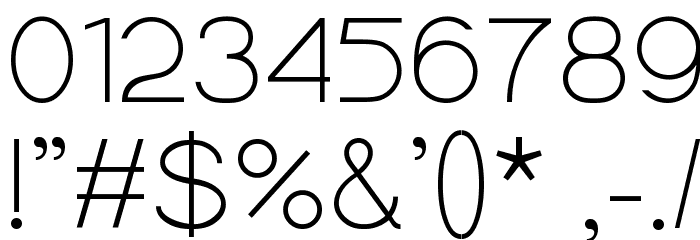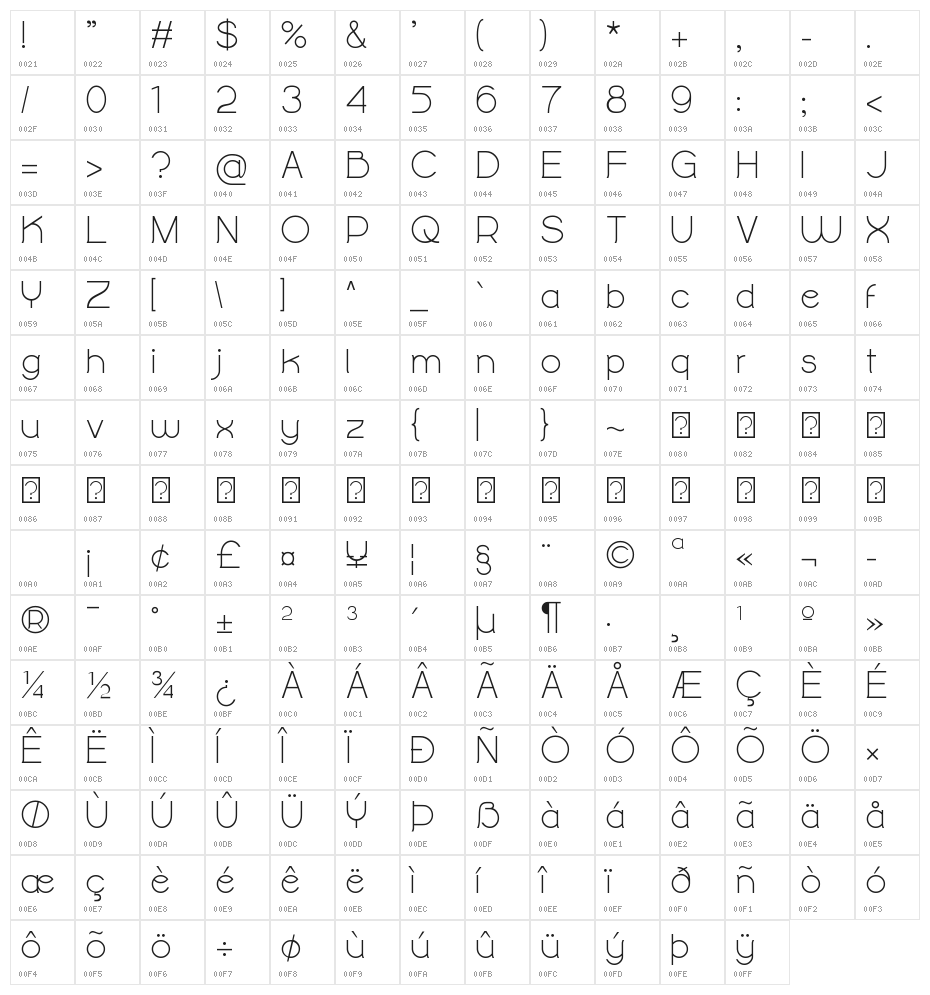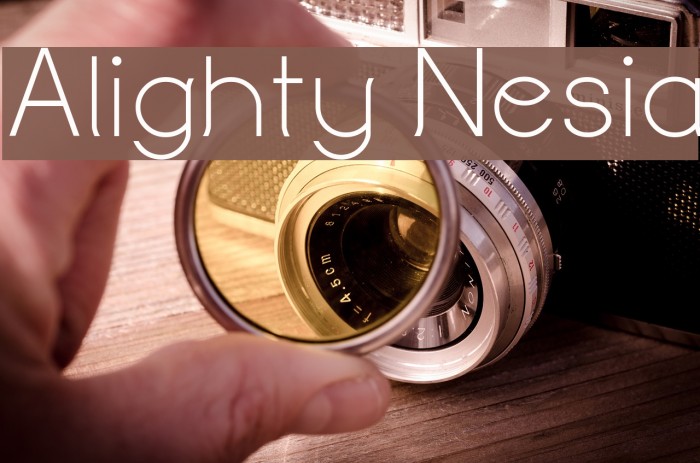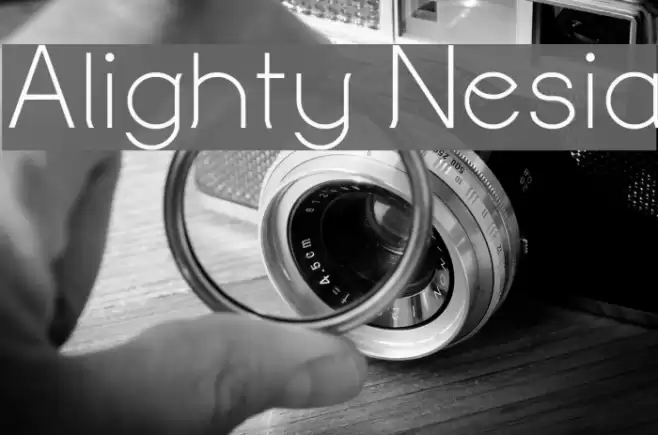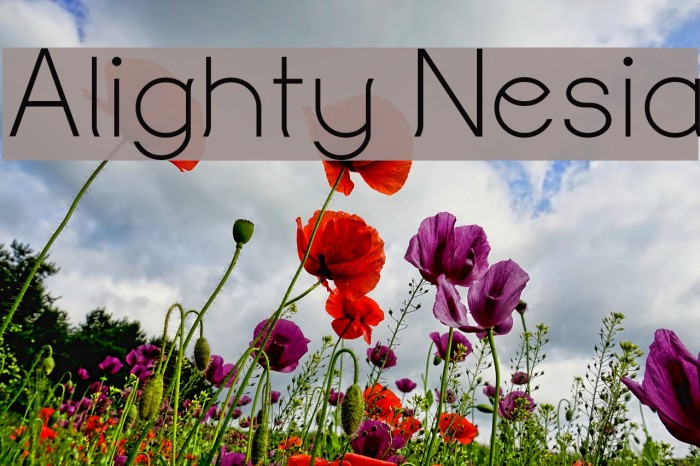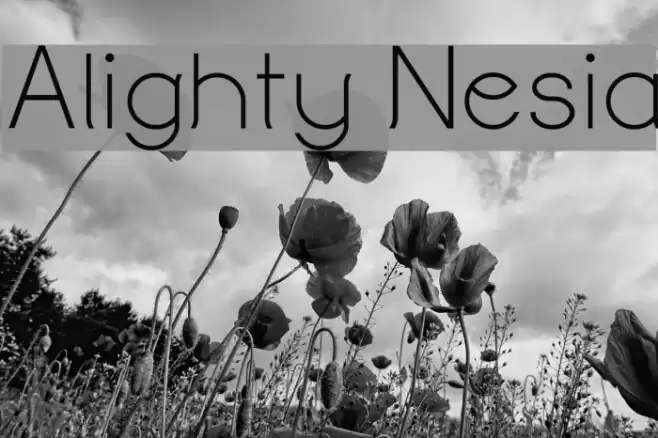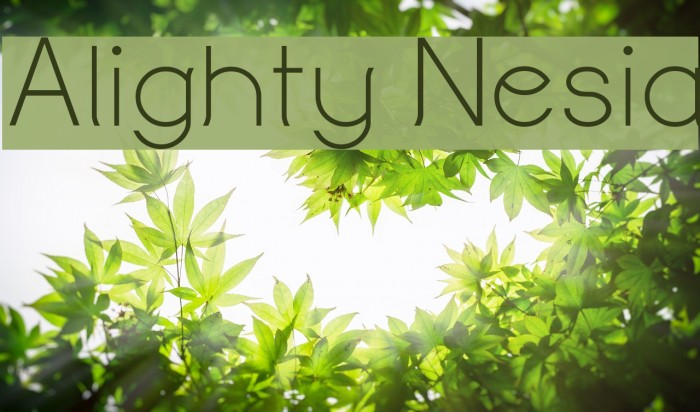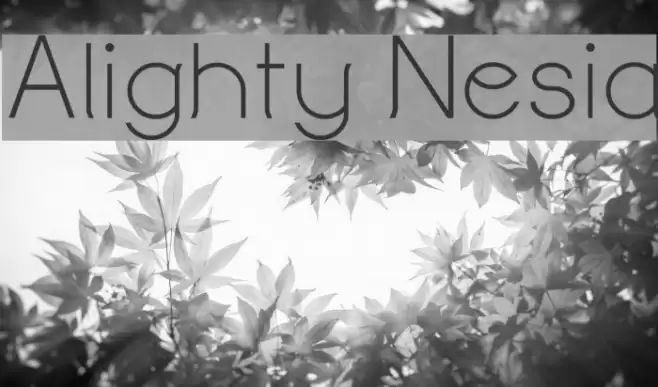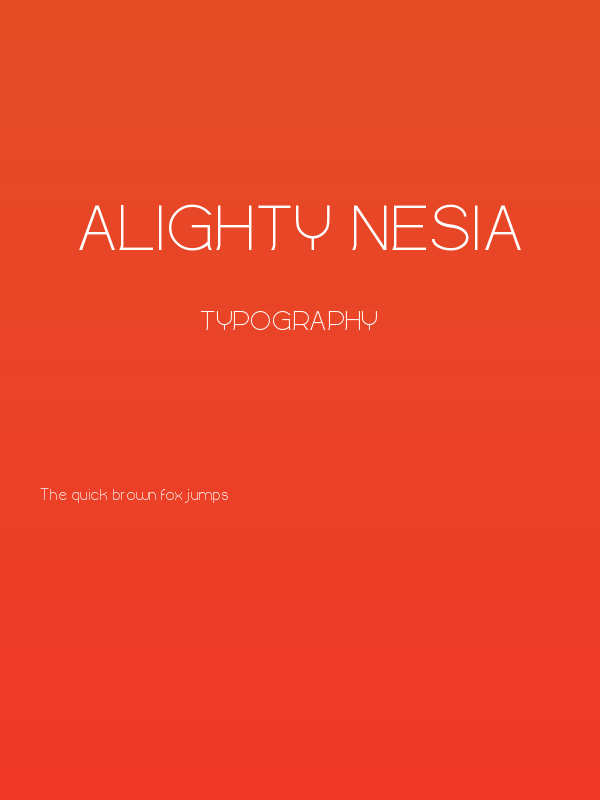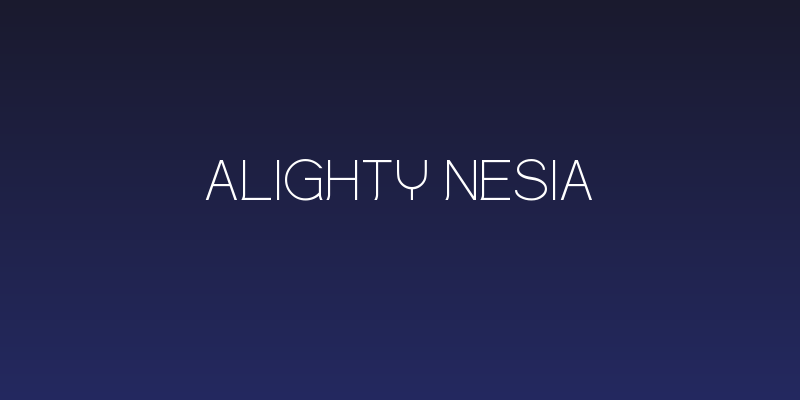
Alighty Nesia Font
Alighty Nesia Description
This font features a clean and modern sans-serif style with geometric influences. The characters are constructed with uniform stroke widths, giving it a balanced and harmonious appearance. The uppercase letters are slightly taller than the lowercase, maintaining a consistent line weight throughout. The numerals are proportionate and align well with the overall design, ensuring readability. Special characters are designed to match the aesthetic, with smooth curves and sharp angles. This font is versatile, suitable for both digital and print media, offering a contemporary look that is both professional and approachable.